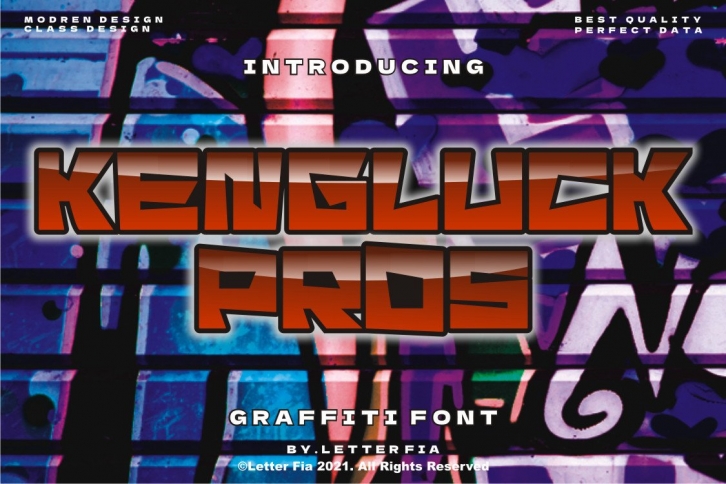
Kengluck Pros is an awesome graffiti styled display font, that features a street art vibe. This font is suitable for designs like jerseys, sportswear, skateboard and more.Â